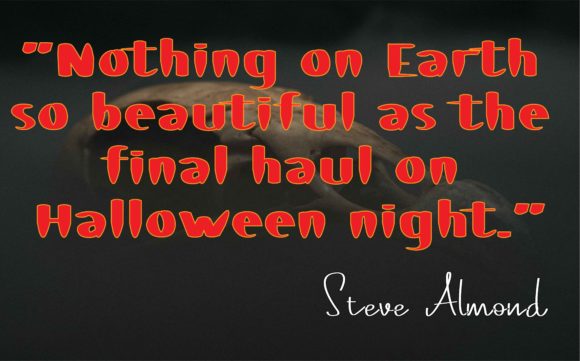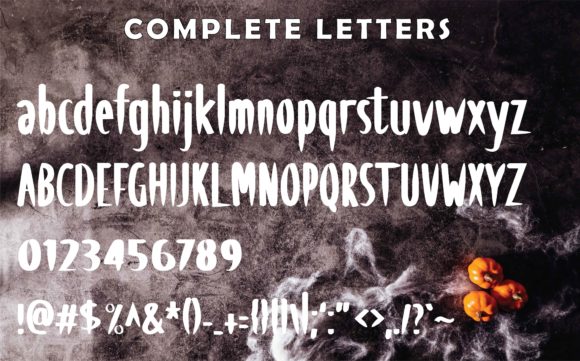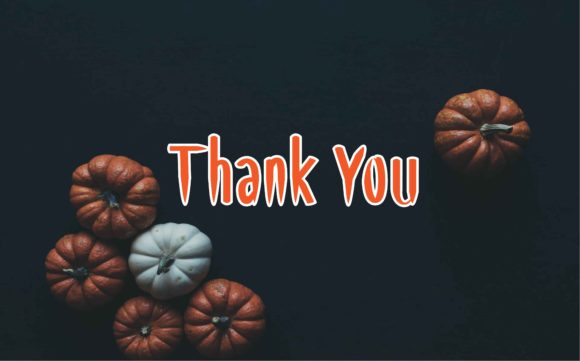
Halloween Spooky Font Font Font – Free Download
Introduction to Halloween Spooky Font Font Font
Fonts play a crucial role in design, and the Halloween Spooky Font Font font is a typeface that brings both character and versatility to any project. Whether you’re working on a branding project, a website, or a print design, the Halloween Spooky Font Font font offers a unique style that can elevate your work.
Halloween Spooky is a chunky lettered and unique display font.
A little bit quirky, this font looks incredibly adept on a wide variety of contexts This product is featured in a CF Class: Using Cricut to Make Halloween Shadow Boxes .
Key Features of Halloween Spooky Font Font Font
Why Choose Halloween Spooky Font Font Font?
The Halloween Spooky Font Font font is more than just a typeface – it’s a design tool that helps you communicate your message with style and clarity. Its unique character set and versatile design make it suitable for a wide range of applications, from elegant invitations to bold headlines.
With its carefully crafted letterforms and balanced proportions, the Halloween Spooky Font Font font ensures readability and visual appeal across all mediums.
What makes Halloween Spooky Font Font font special?
The Halloween Spooky Font Font font stands out with its unique design, exceptional readability, and versatility across various design applications.